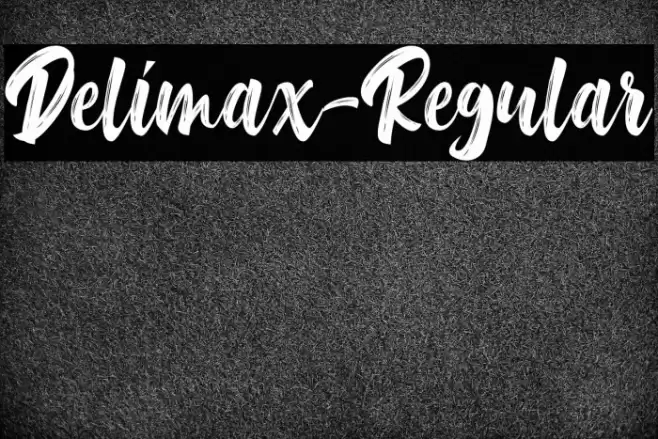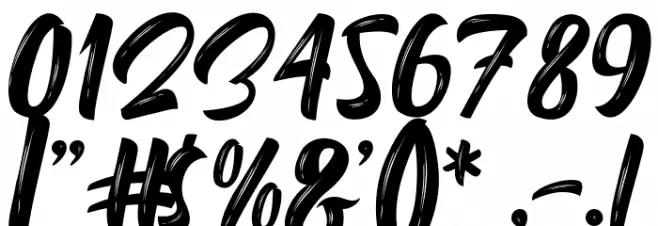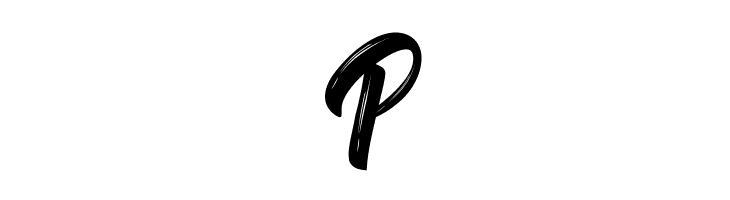
Delimax-Regular Font
Delimax-Regular Description
This font features a bold and expressive script style with a brush-like appearance, characterized by its dynamic and fluid strokes. The uppercase and lowercase letters are designed with a sense of movement, giving the text a lively and energetic feel. The numerals and special characters maintain the same brush-stroke quality, ensuring consistency across all glyphs. The overall design is modern and artistic, making it suitable for creative projects that require a personal touch.
A bold, brush-style script font with dynamic, fluid strokes from Uncategorized fonts.
- Proposed Projects: Ideal for branding, packaging, invitations, and social media graphics where a personal and artistic touch is desired.